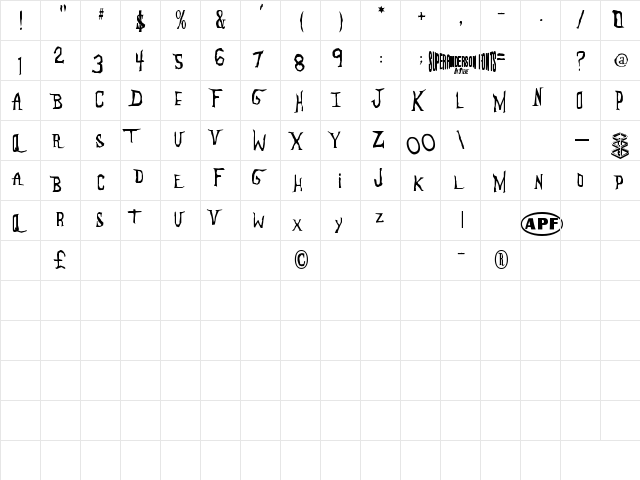
Anderson The Mysterons Regular
Design Context for Anderson The Mysterons Typeface
Anderson The Mysterons is a composed and adaptable typeface that performs quietly and consistently across a wide range of design contexts.